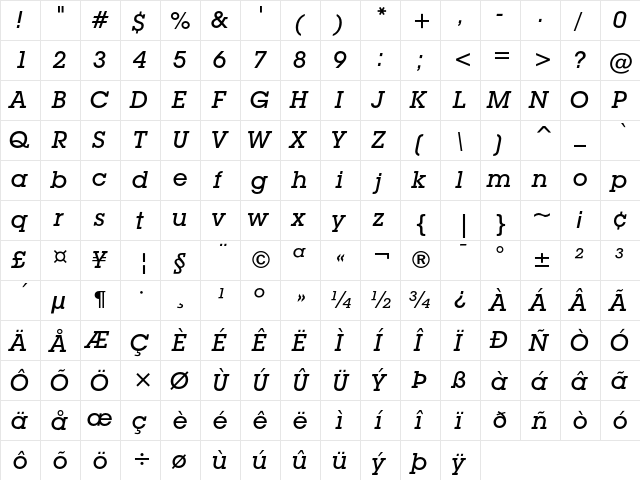
ITC Lubalin Graph Medium Oblique Font Preview
ITC Lubalin Graph Medium Oblique
Design Context for ITC Lubalin Graph Typeface
ITC Lubalin Graph offers clean, dependable letterforms without strong stylistic allegiance, making it a practical choice for designers who need flexibility. Its italic angle brings a sense of urgency and motion to the letterforms.
Pro Tip: Try ITC Lubalin Graph for annotation and caption copy alongside an upright companion — the contrast in angle creates a dynamic but ordered typographic system.